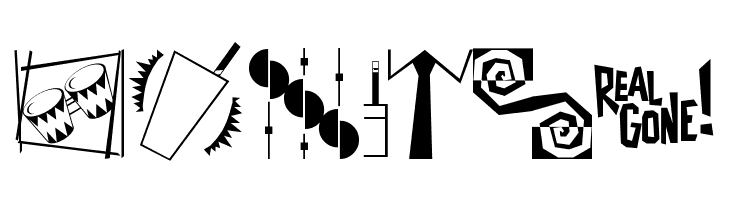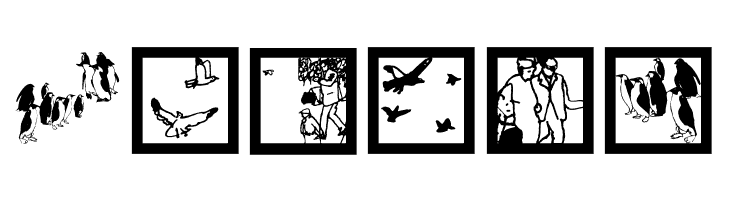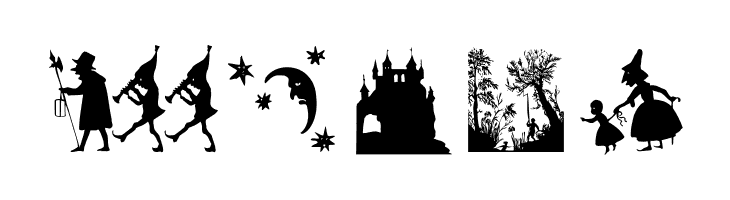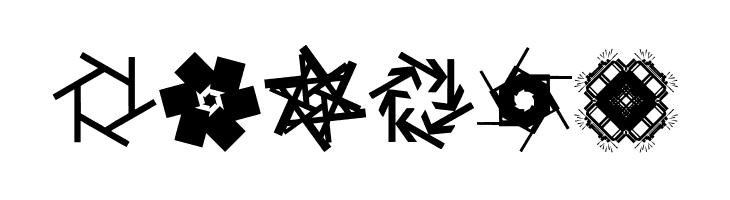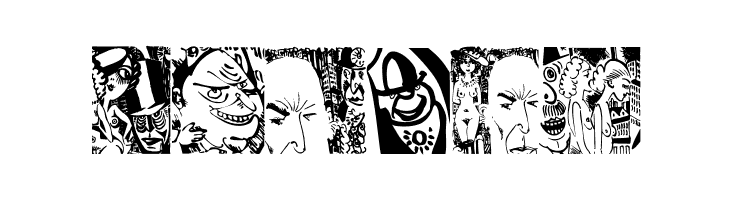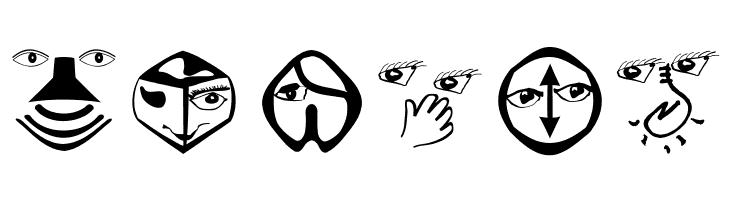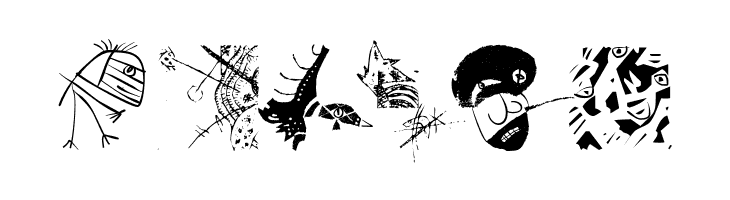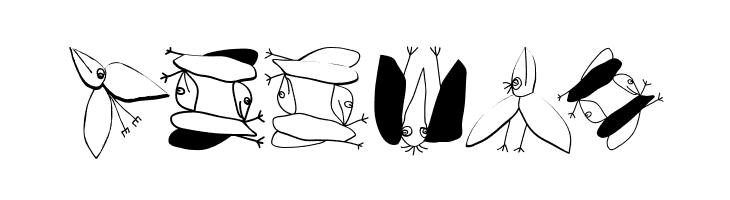
A playful and nostalgic set of 1950s-themed icons with bold, retro designs.
Illustrative font using street scenes and figures as characters.
A whimsical, decorative font featuring nostalgic silhouette scenes.
A decorative set of intricate, kaleidoscope-inspired geometric symbols.
A bold, italicized font with strong strokes and a forward-slanting design.
A graphic, illustrative font with each character as a detailed scene.
Abstract, pill-shaped design with bold black and white patterns.
A playful, abstract collection of symbols blending facial elements with geometric designs.
An abstract, artistic font inspired by Kandinsky's style, featuring unique geometric compositions.
A whimsical font made from fly illustrations, perfect for creative projects.
A modern, elegant font with thin lines and subtle decorative swirls.
A whimsical collection of sea-themed decorative elements with intricate designs.
A decorative font featuring whimsical turtle illustrations for each character.
A bold, modern font with thick, uniform strokes and high legibility.
A sleek, modern, and condensed font with thin strokes and excellent legibility.
A decorative font featuring ornate and intricate uppercase 'K' designs.
A dynamic, italicized handwritten font with smooth, fluid strokes.
Intricate ornamental designs with swirling and floral motifs for decorative use.
A bold, modern font with thick, uniform strokes and a geometric style.
A playful, decorative font with intricate patterns and a hand-drawn style.
A bold, italic serif font with elegant curves and a classic style.
A spiky, explosive decorative font with dynamic, aggressive styling.
A detailed hand-illustrated font representing the German finger alphabet.
A whimsical collection of heart-themed decorative elements with varied designs.
A bold, decorative font with a zebra stripe pattern, perfect for eye-catching designs.